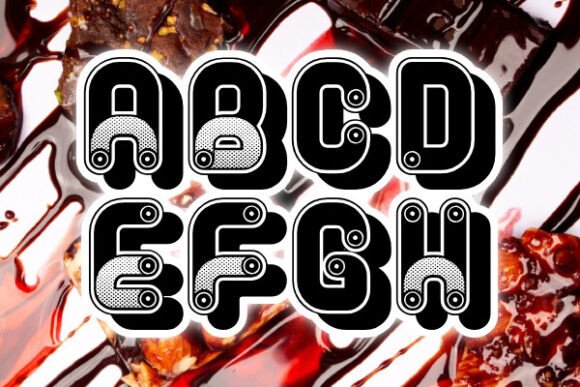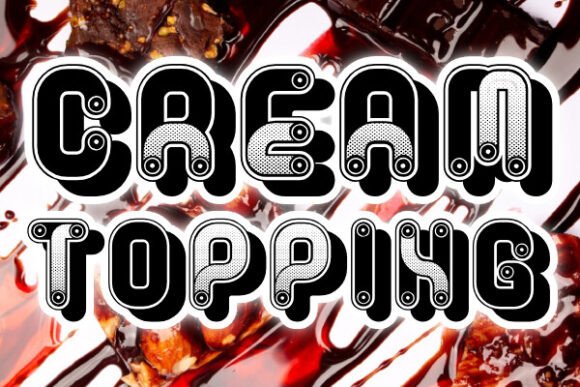
The Aroma Font: A Decorative Delight for Your Designs
With its unique decorative style, Aroma instantly elevated my design and helped me deliver a stunning poster that exceeded my client’s expectations. If you’re a designer, crafter, or creative hobbyist looking for a font that can add a touch of personality to your work, you’re in luck! In this article, we’ll dive into the world of Aroma font, exploring its features, uses, and some helpful tips and tricks.
An Honest Review of Aroma Font
What I Love About Aroma Font ✨
- Unique decorative style that’s perfect for making a statement
- Highly versatile and can be used on various design materials, from posters and flyers to t-shirts and more
- Easy to read and understand, even in smaller font sizes
- Supports OpenType features, glyphs, and stylistic alternates for added creativity
- May not be suitable for body text or long-form content due to its decorative nature ⚠️
- Some users may find the font a bit too ornate for certain design projects
The Story Behind Aroma Font
Aroma font was designed with the goal of creating a unique, decorative font that could add a touch of personality to any design project. The designer aimed to craft a font that was both elegant and playful, making it suitable for a wide range of applications. While the designer’s background and inspiration may be shrouded in mystery, one thing is clear: Aroma font has become a beloved choice among designers and creative hobbyists alike.
| What type of projects is Aroma font best suited for? | Aroma font is perfect for creative projects, such as posters, flyers, t-shirts, and other design materials that require a decorative touch. |
| Is Aroma font suitable for body text or long-form content? | No, Aroma font is not recommended for body text or long-form content due to its decorative nature. It’s best used for headlines, titles, and short paragraphs. |